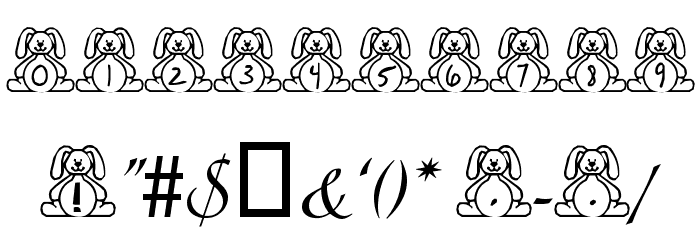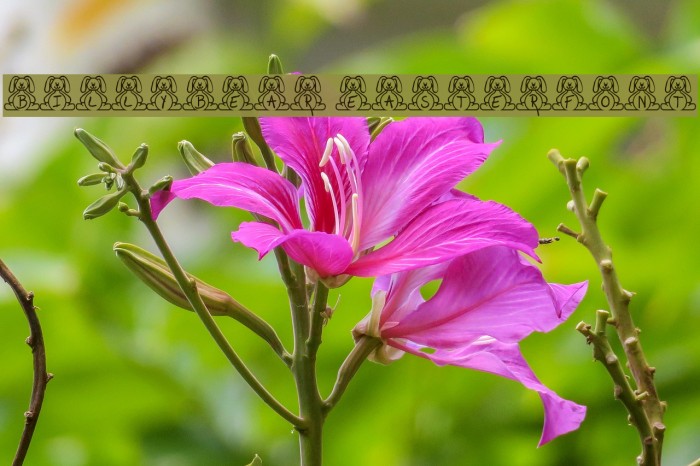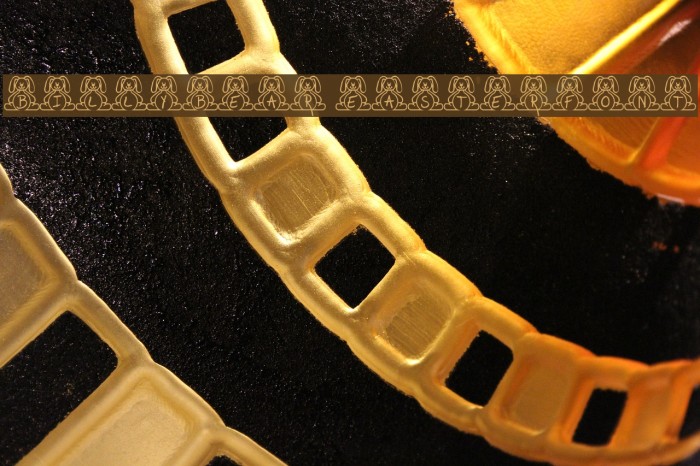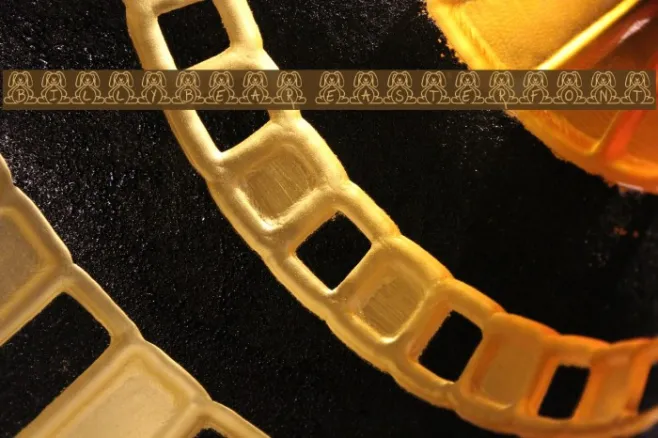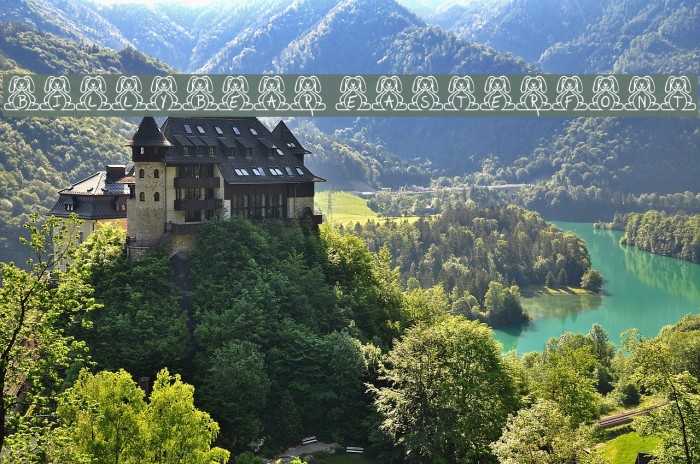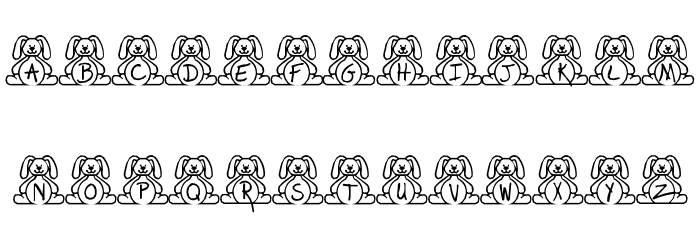
BillyBear EasterFont Font
BillyBear EasterFont Description
This playful and whimsical font features each character enclosed within a cute, cartoonish bunny design. The bunnies are sitting with their ears perked up, creating a fun and festive look perfect for Easter or spring-themed projects. The letters and numbers are clear and legible, nestled within the bunny's body, making it both decorative and functional. The font includes uppercase and lowercase letters, numbers, and a selection of special characters, all maintaining the consistent bunny motif. The overall design is charming and light-hearted, ideal for adding a touch of joy and creativity to any project.
| Overall Style | Playful, Festive |
| Use Case | Headlines, Decorative text, Themed projects |
| Proposed Projects | Ideal for Easter cards, children's party invitations, playful branding, and festive decorations. |